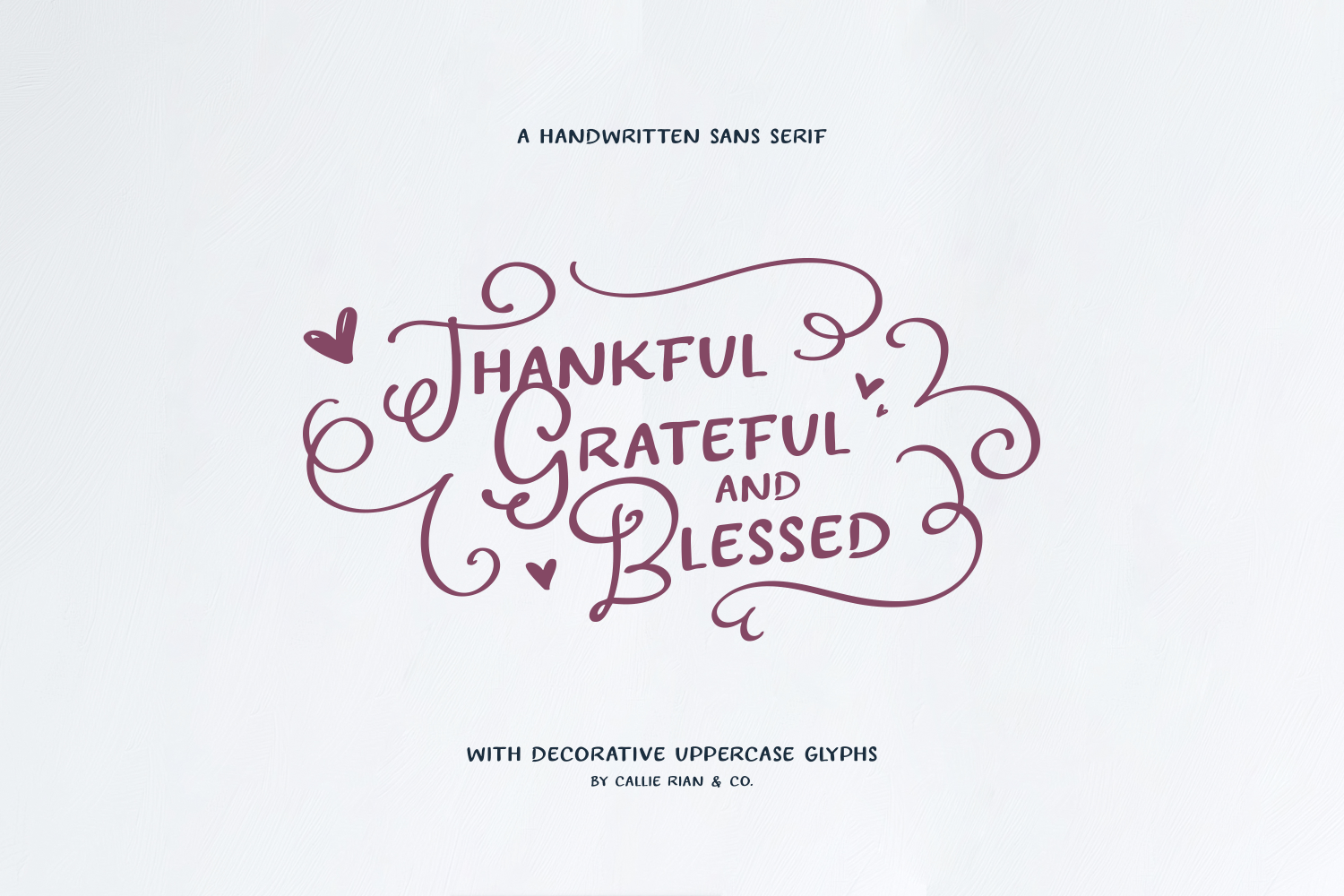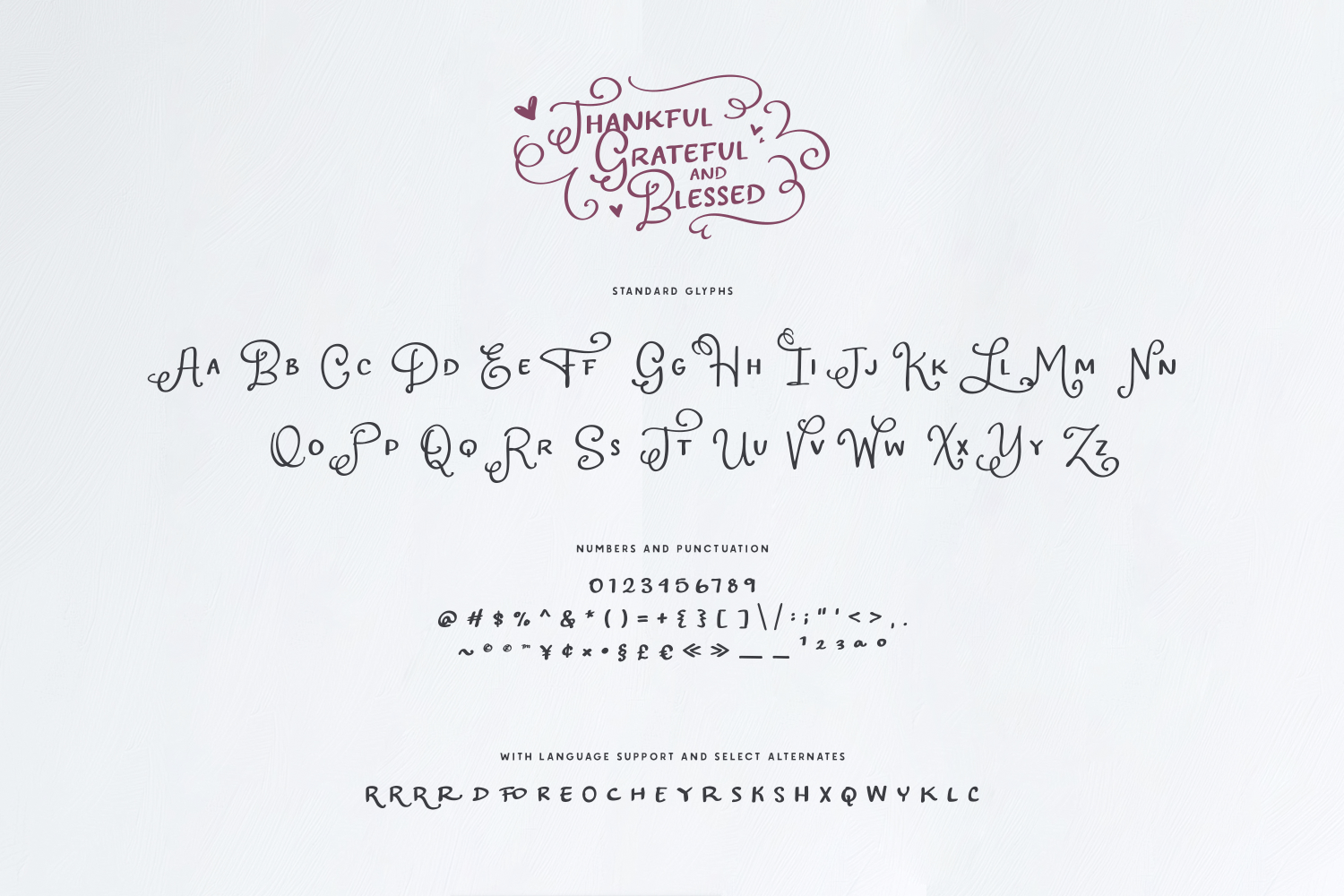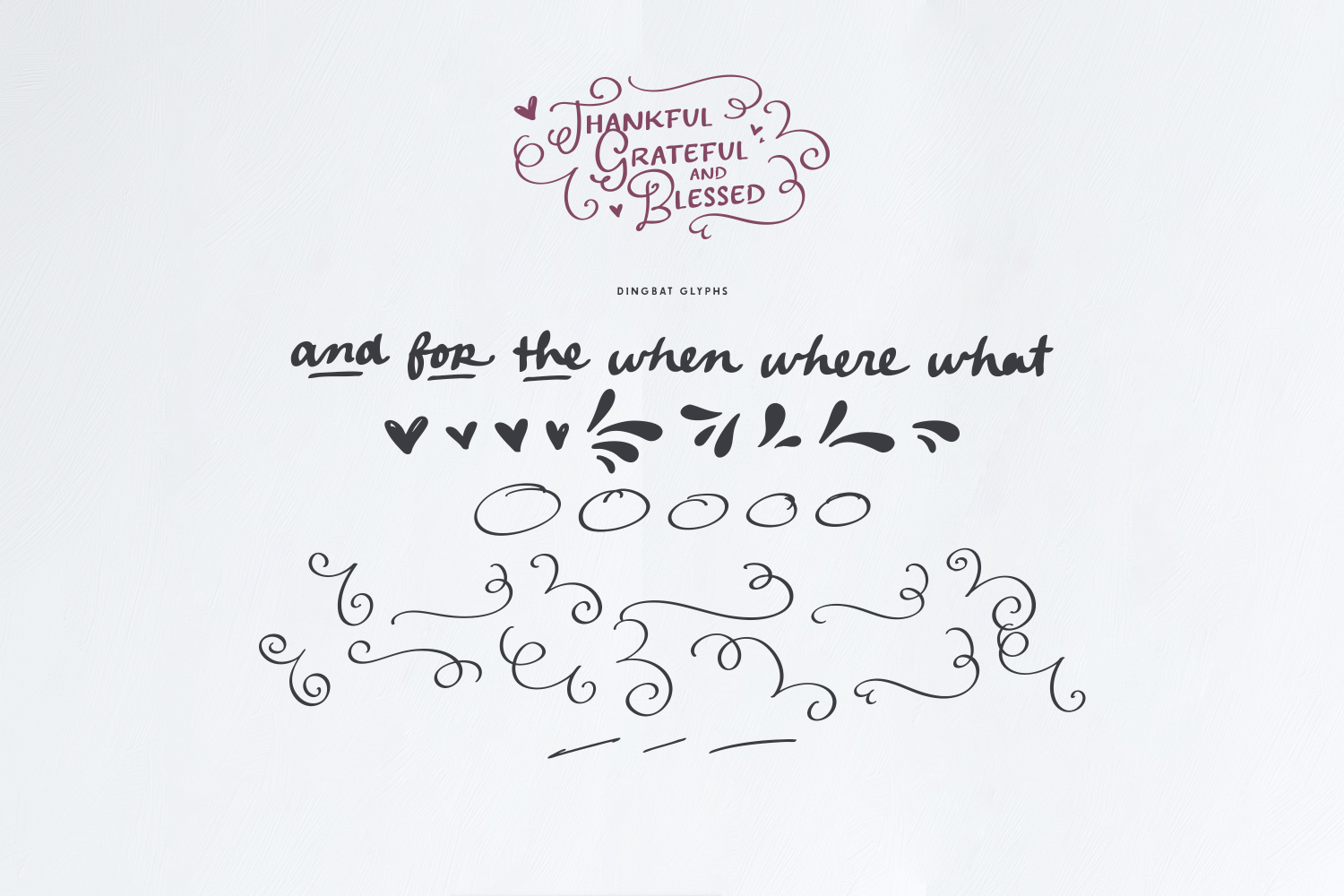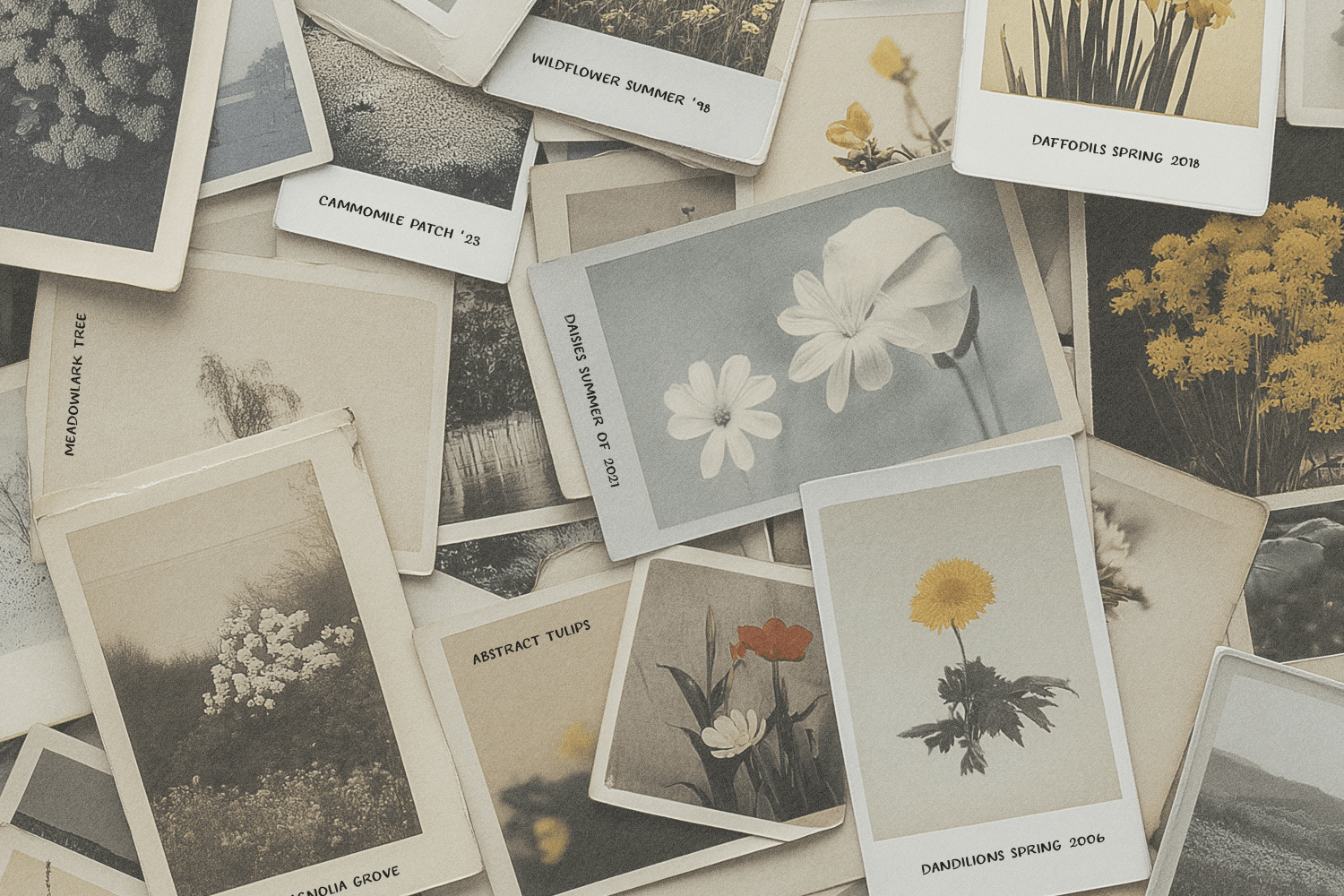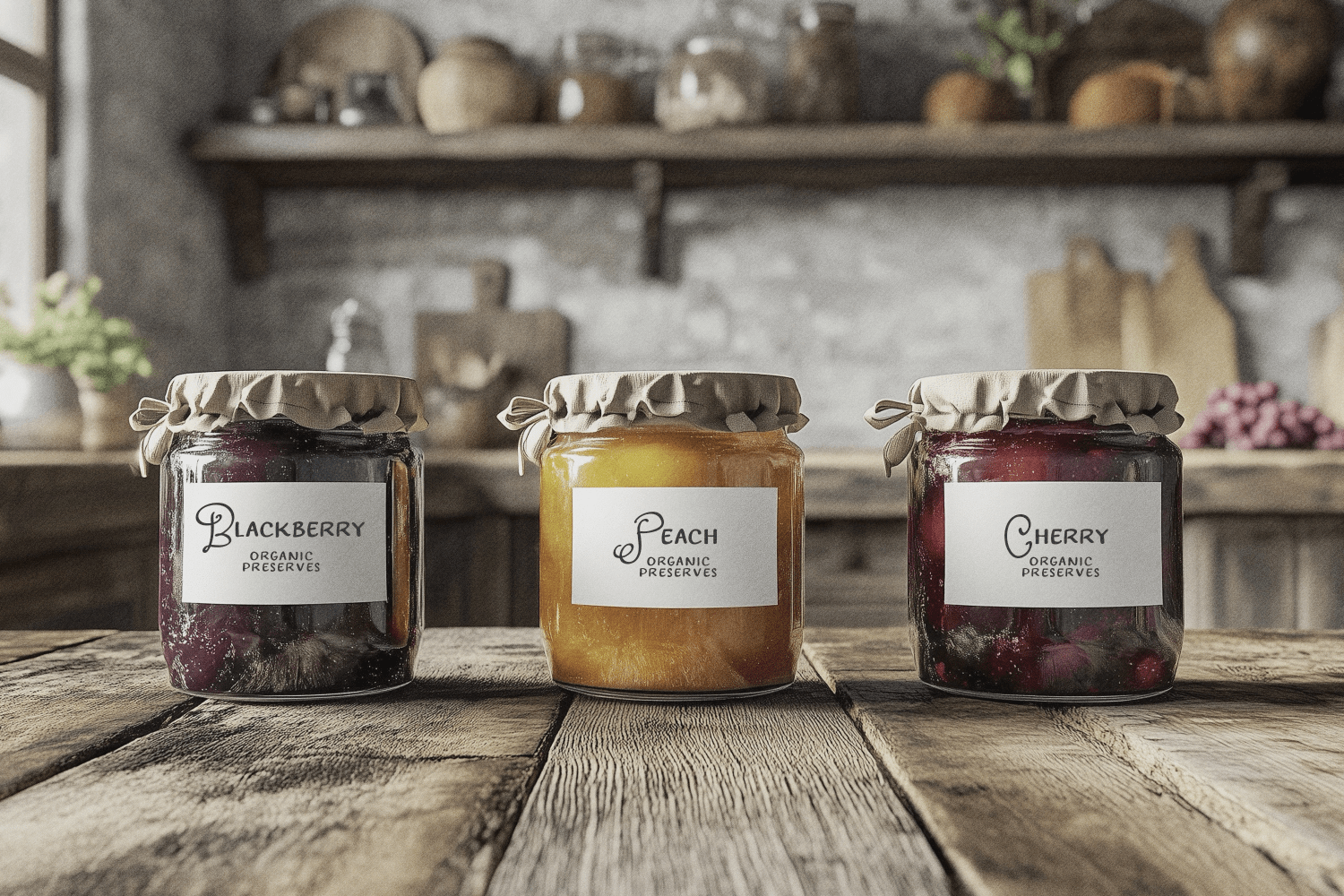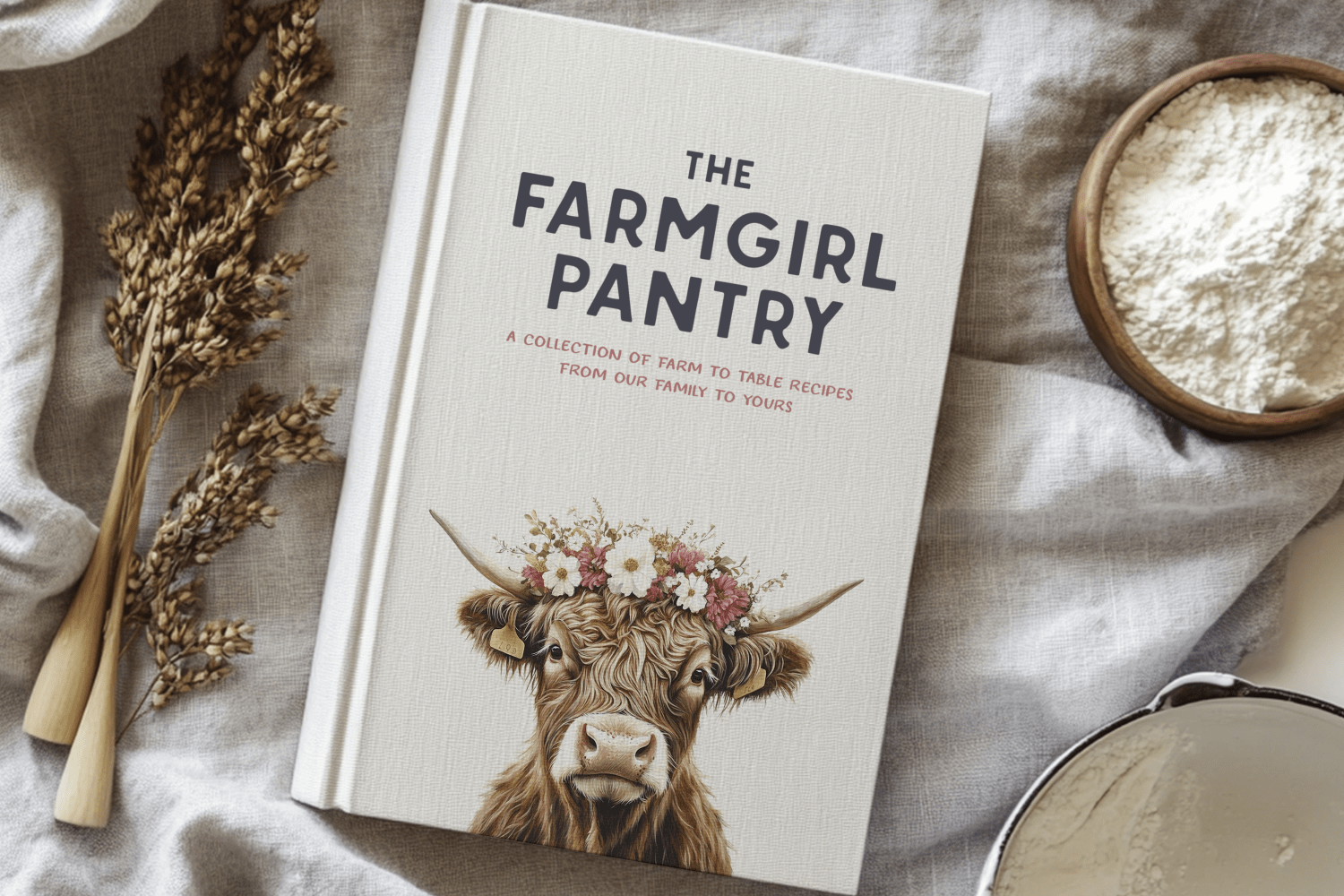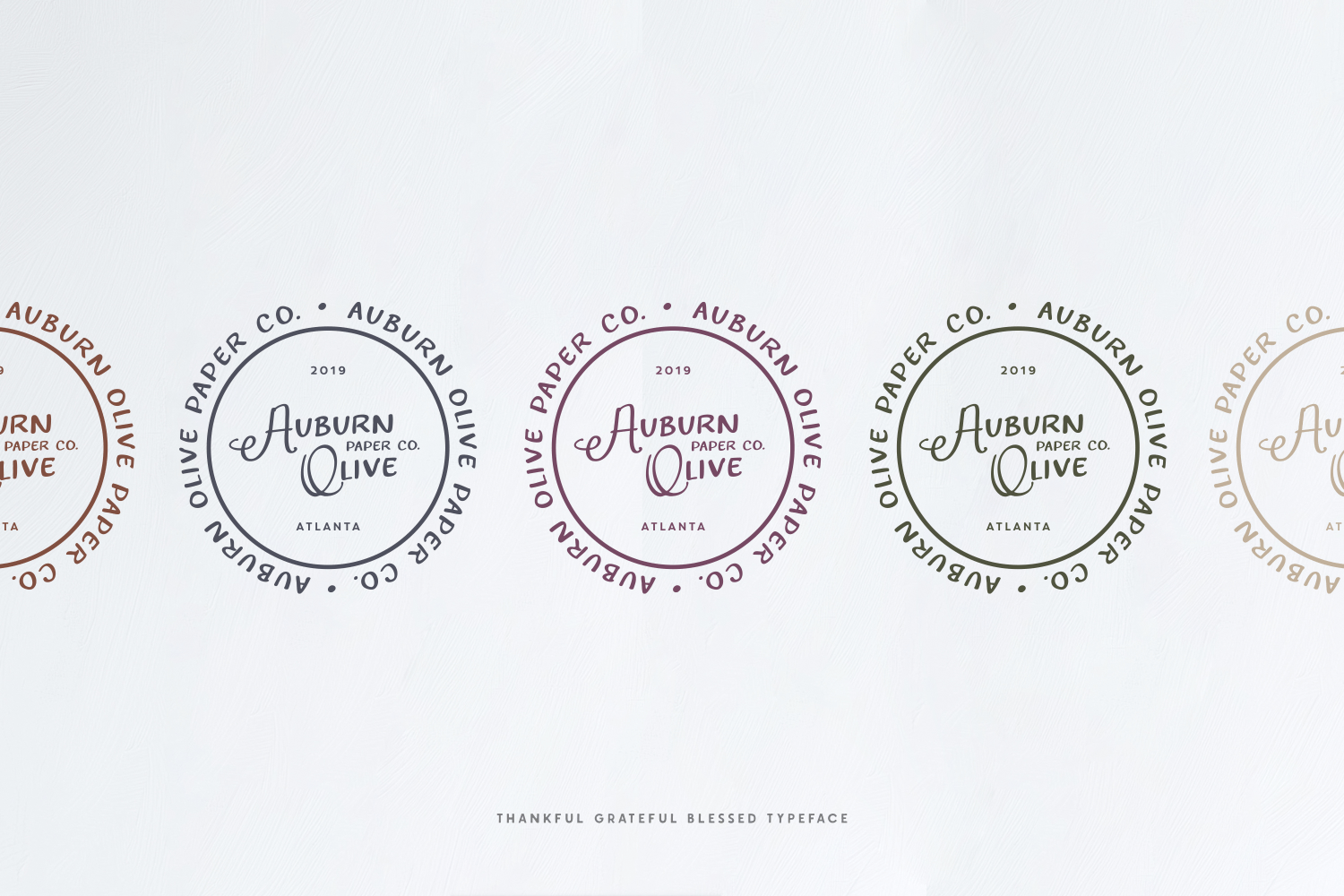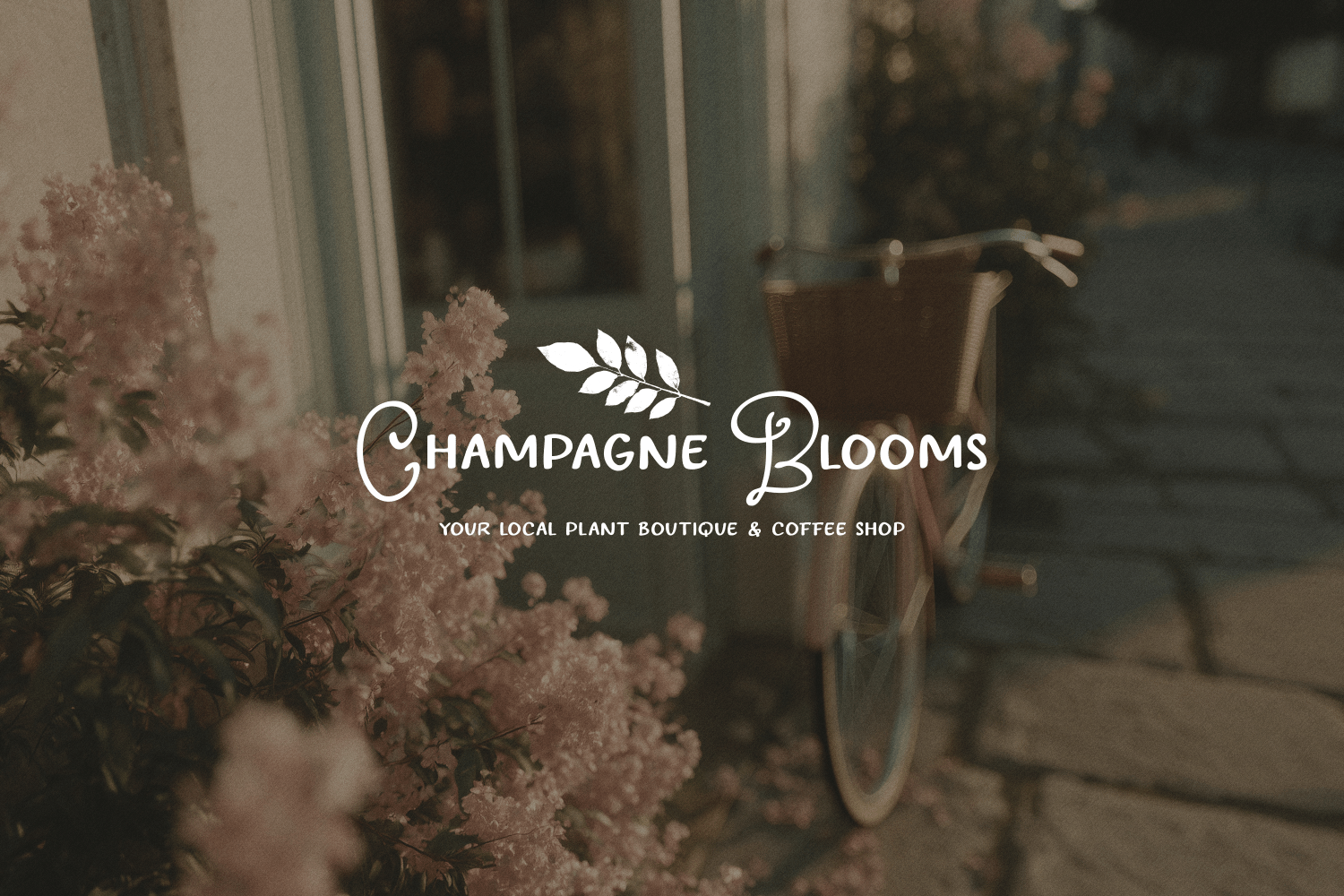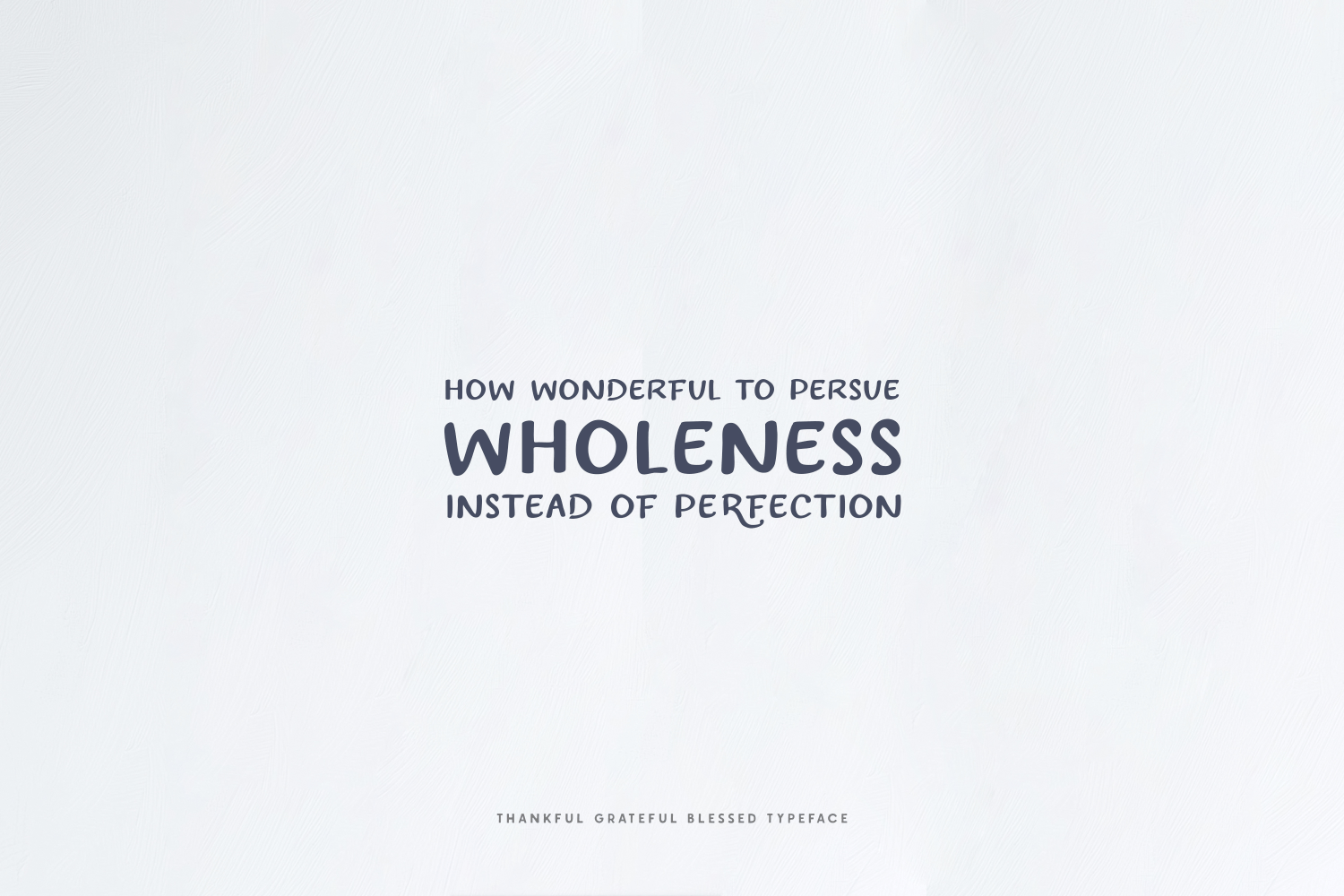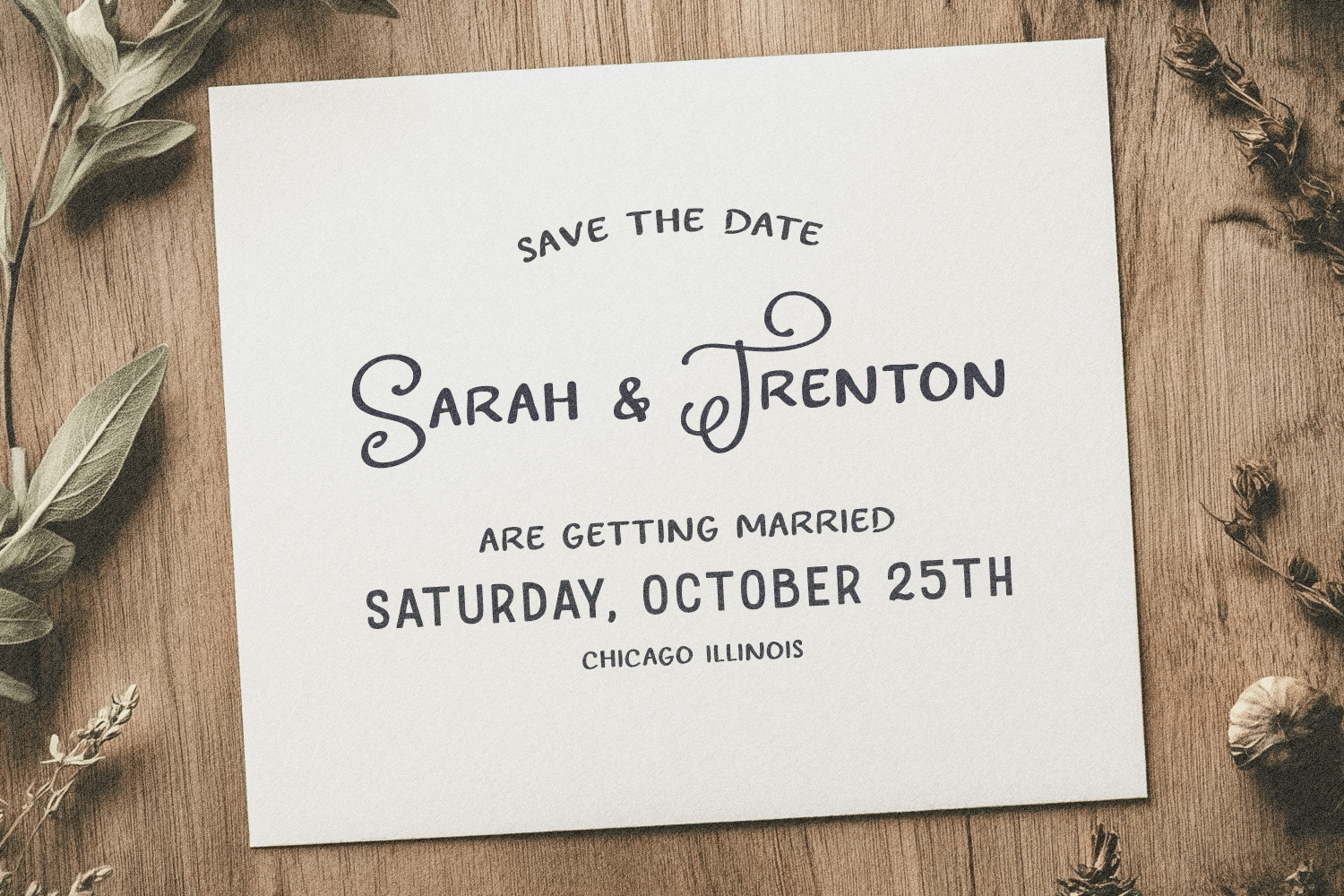
Grateful Thankful & Blessed Type + Dingbats
Font Family by Callie Rian & Co
Introducing Thankful, Grateful & Blessed! This adorable, dual-purpose font can be fancy with decorative uppercase glyphs, or simple and legible with a set of all-caps lowercase glyphs. Use on wedding invitations, Save The Date cards, packaging, logos, quotes and more!